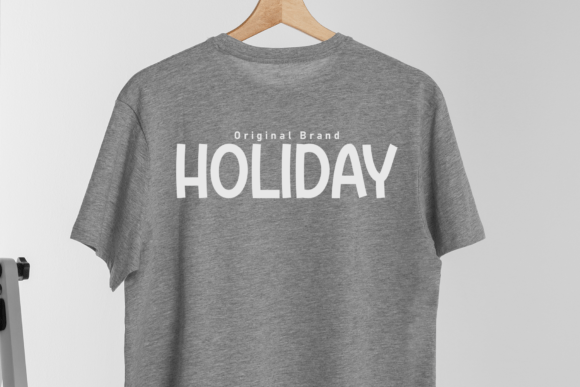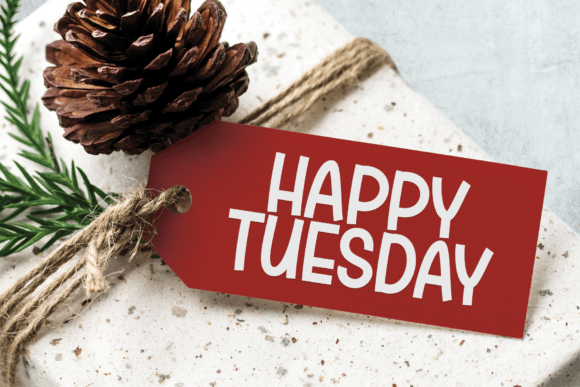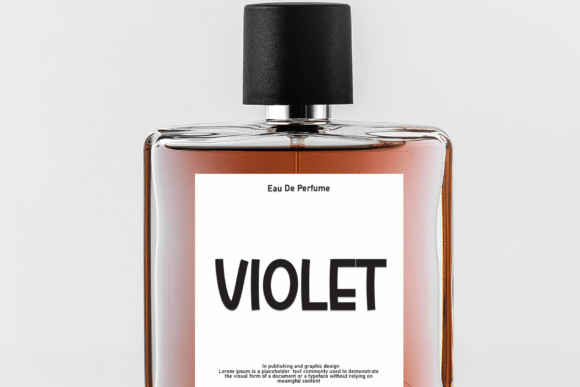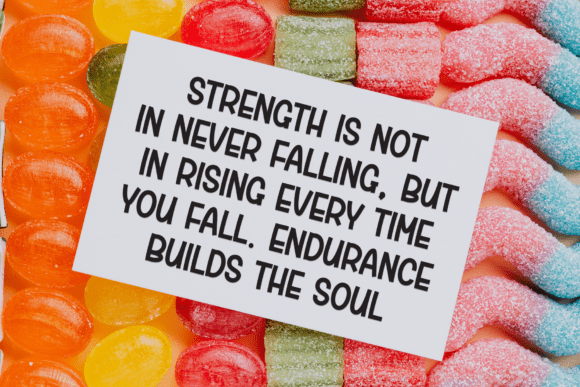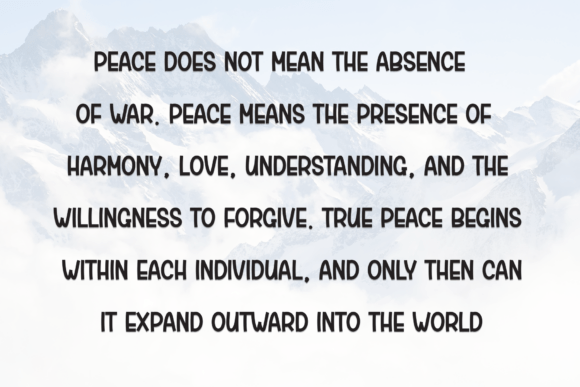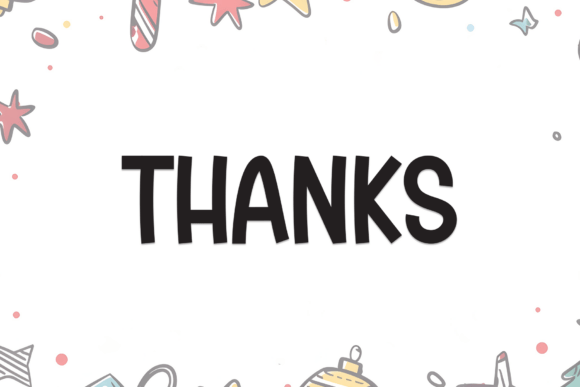
Get Ready to Jingle All the Way with the Perfect Font for Your Holiday Designs
Do you remember the excitement of creating handmade Christmas cards for your loved ones as a child? The scribbled letters, the colorful decorations, and the sense of pride when you finished your masterpiece? That same joy and creativity can be captured in your designs with the Doodle Christmas Font.
This playful, all-caps font is designed to bring a touch of spontaneity and energy to your projects. With its thick, monoline stroke and slightly uneven texture, it has the authentic look of quick, personal lettering. Whether you’re creating holiday-themed designs or need a versatile font for year-round projects, the Doodle Christmas Font is an essential tool for adding a lighthearted, non-formal aesthetic to your work.
- Unique Characteristics: The Doodle Christmas Font features a playful, hand-drawn design with a festive holiday theme, complete with ornaments, snowflakes, and other winter elements.
- Character Set: The font includes a wide range of characters, including uppercase and lowercase letters, numbers, punctuation, and special symbols, as well as holiday-themed glyphs and ornaments.
Doodle Christmas Font Review
I was excited to dive into the “Doodle Christmas Font” and see what it has to offer. Overall, I’d say it’s a charming addition to any holiday design project. ✨ The font’s hand-drawn style gives it a warm, personal feel that’s perfect for Christmas cards, gift tags, or even social media posts.
- Unique, whimsical style that sets it apart from more traditional holiday fonts
- Great for creating a playful, childlike vibe in your designs
- Easy to read, even in smaller font sizes
That being said, there are a few limitations to keep in mind:
- May not be the best choice for formal or professional designs
- Some letters and characters may not be perfectly legible in certain contexts
- Not as versatile as some other holiday fonts, with limited language support
Overall, I think the “Doodle Christmas Font” is a fun, quirky addition to any holiday design project. While it may not be the best choice for every situation, it’s sure to add a touch of personality to your designs. ✨
The Doodle Christmas Font is perfect for:
- Christmas card designs and invitations.
- Holiday-themed social media posts and graphics.
- Custom illustrations and graphics for greeting cards and gift tags.